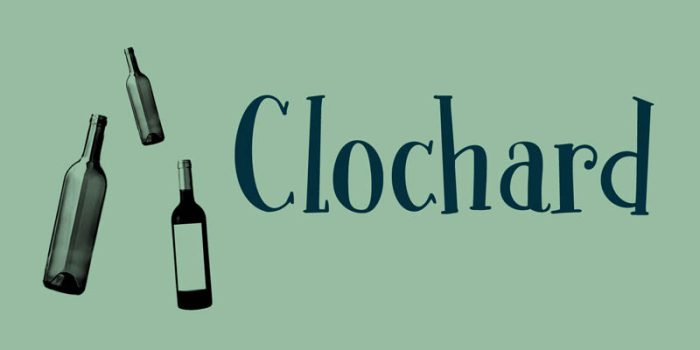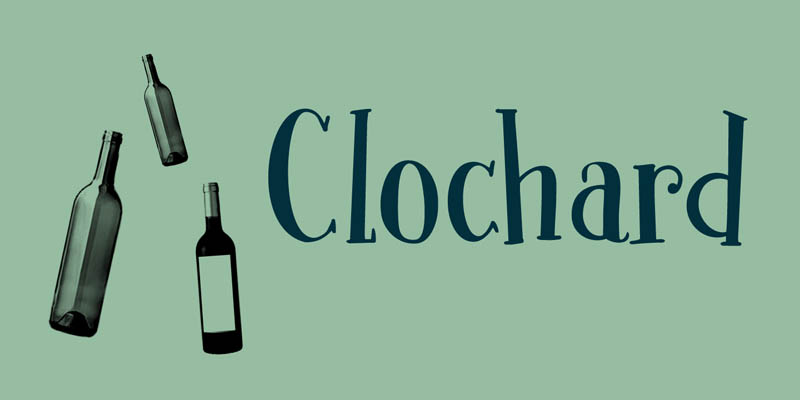
Clochard
Clochard is a handmade, Bodoni-like font. It is a little loose, a little rough in places and a little uneven, but it all adds to Clochard’s charm. Comes with plenty of diacritics!